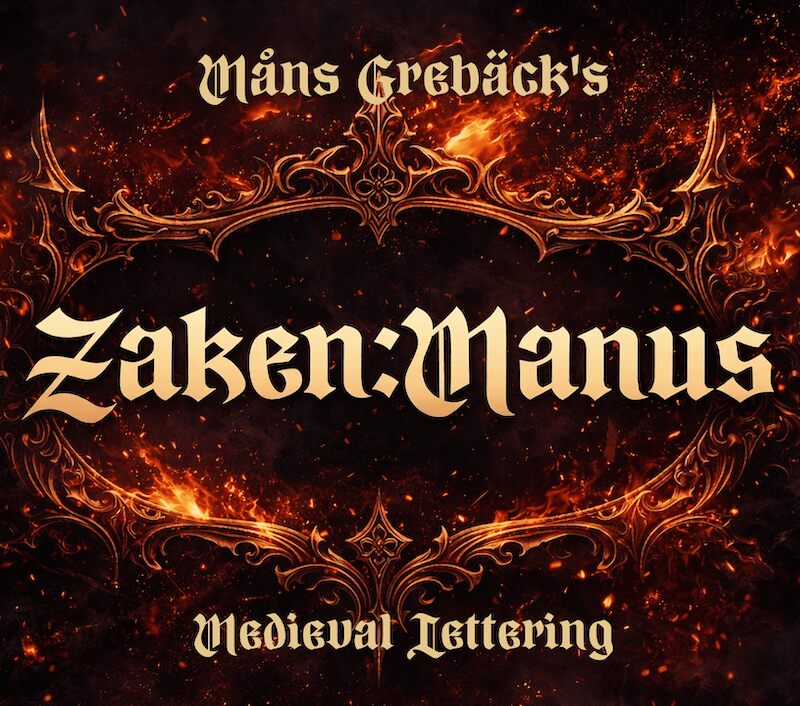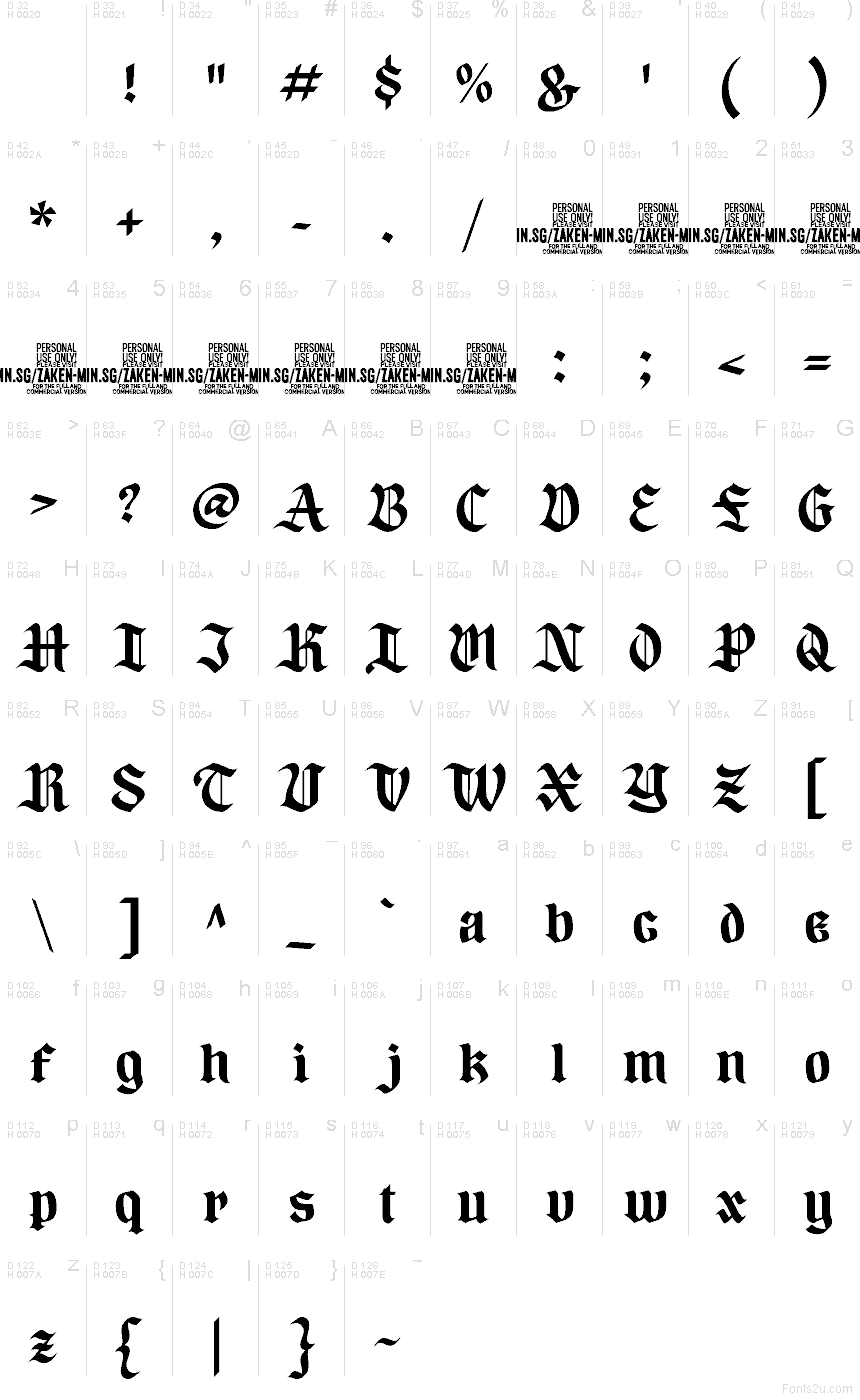
Zaken Manus PERSONAL USE Regular
Zaken Manus font by Mans Greback is a free gothic medieval blackletter typeface with a steady, commanding presence. The strokes feel as if they’ve been carved with a broad nib, giving each word a dark, inky weight while keeping the rhythm clean and legible. It avoids the usual gothic chaos: the texture is dense and dramatic, but the structure is controlled, so your message doesn’t get lost in ornament.
Using Zaken Manus, headlines gain a formal, almost ceremonial tone that still reads smoothly at a glance. This free font works beautifully for logos, metal or fantasy band identities, medieval event posters, beer labels, book covers, and game titles that need gravitas. Try pairing it with a simple geometric sans for body copy and let Zaken Manus handle the heavy lifting in larger sizes.